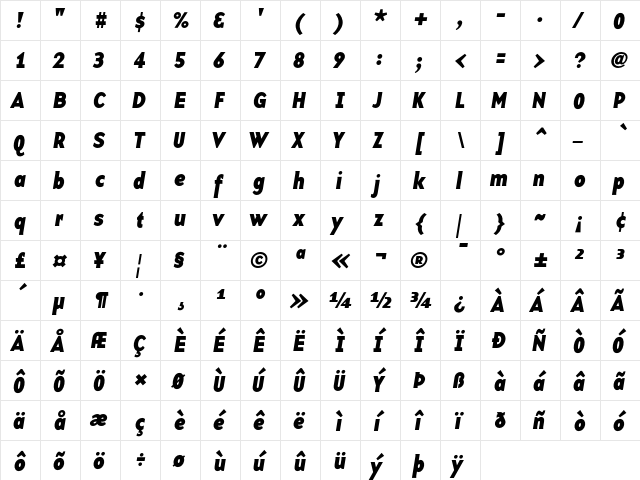
BaseTwelve SansBI
Design Context for BaseTwelve Typeface
BaseTwelve is a composed and adaptable typeface that performs quietly and consistently across a wide range of design contexts.